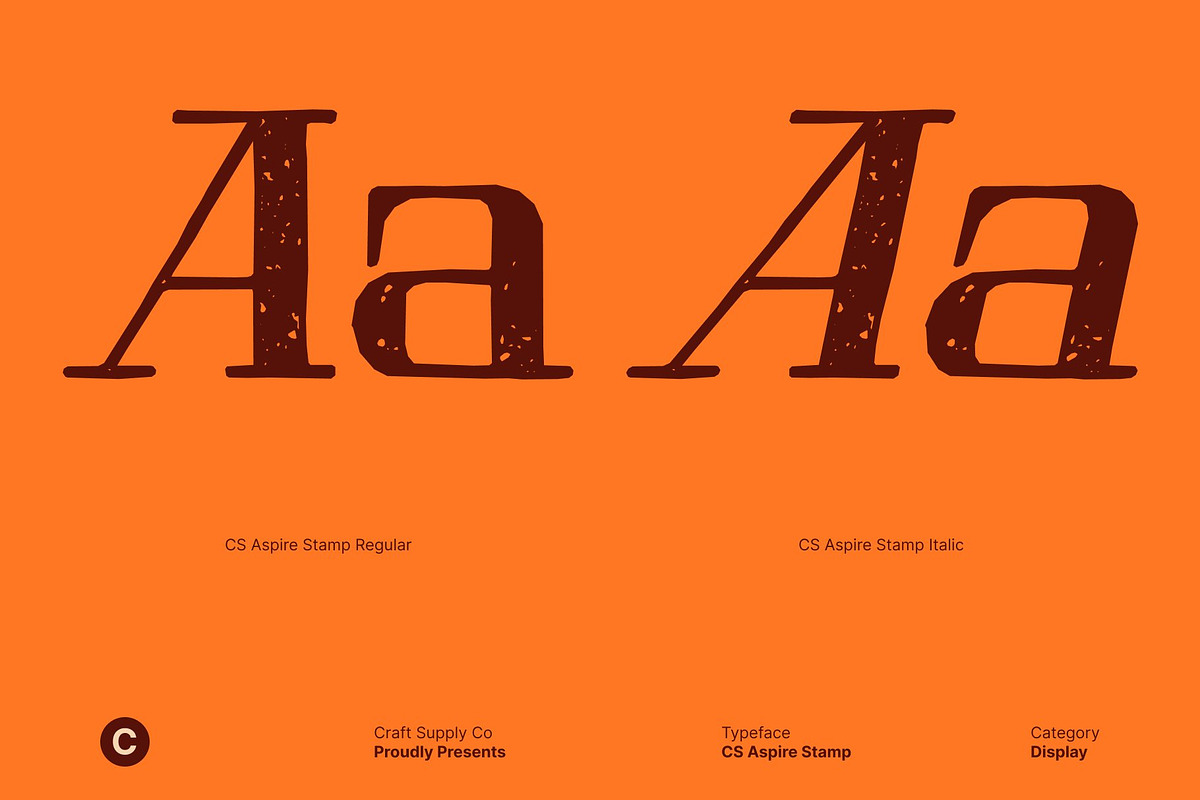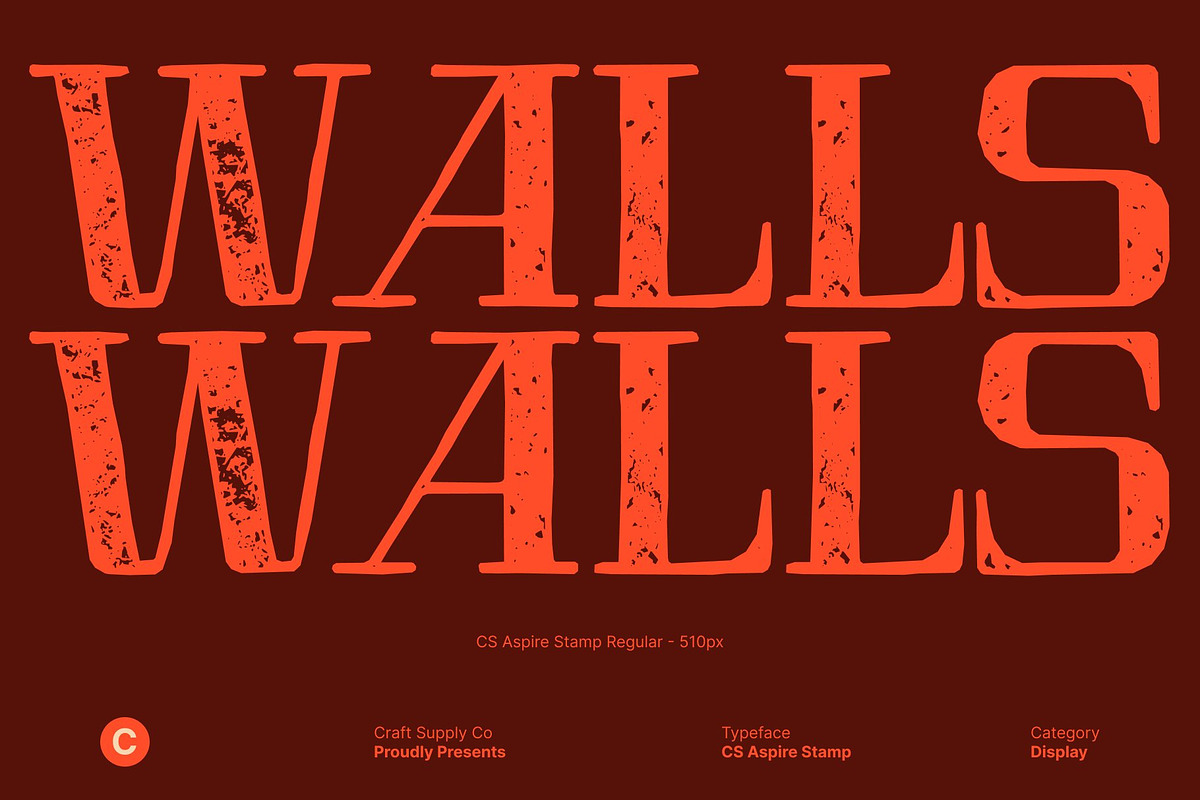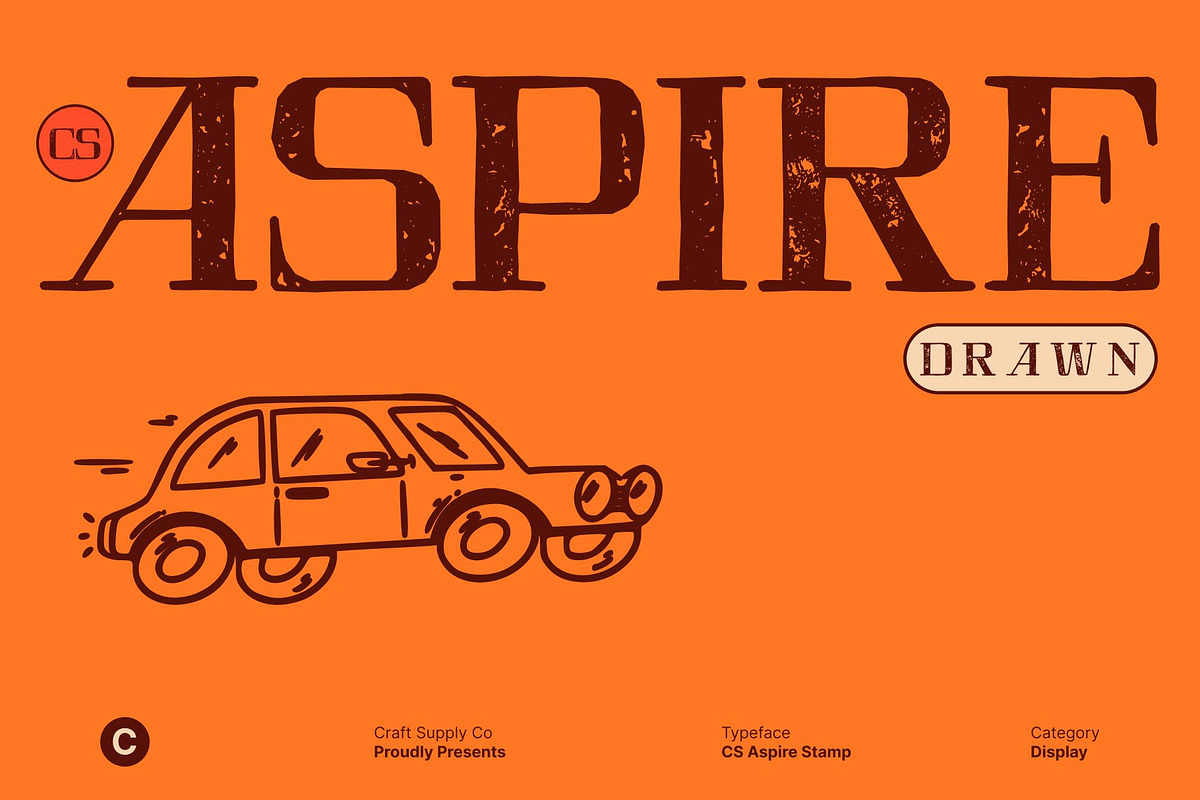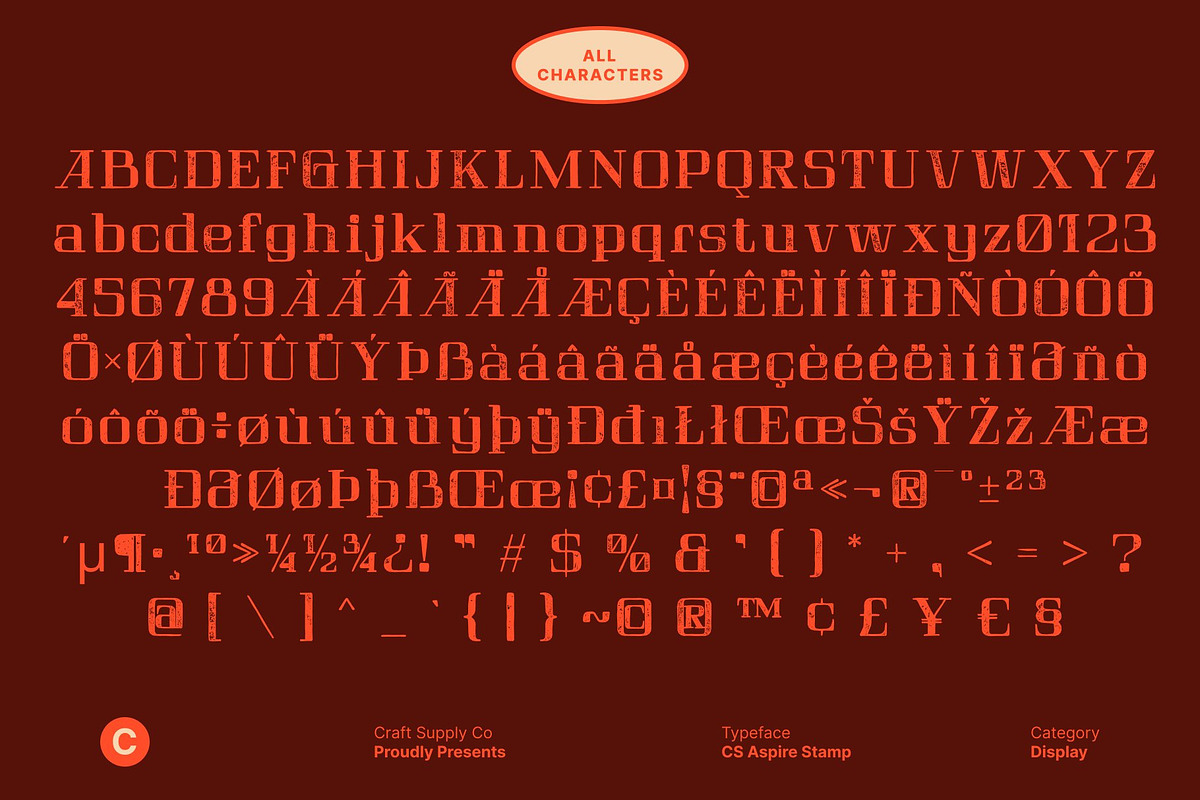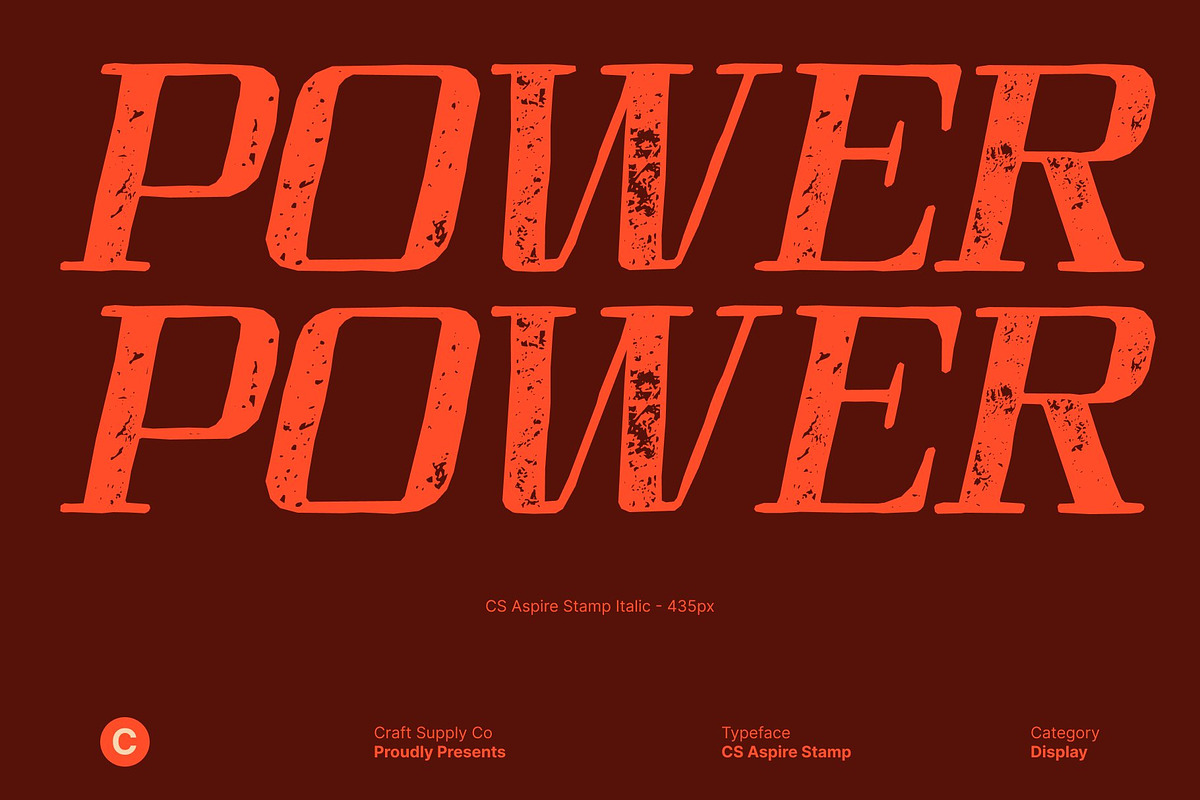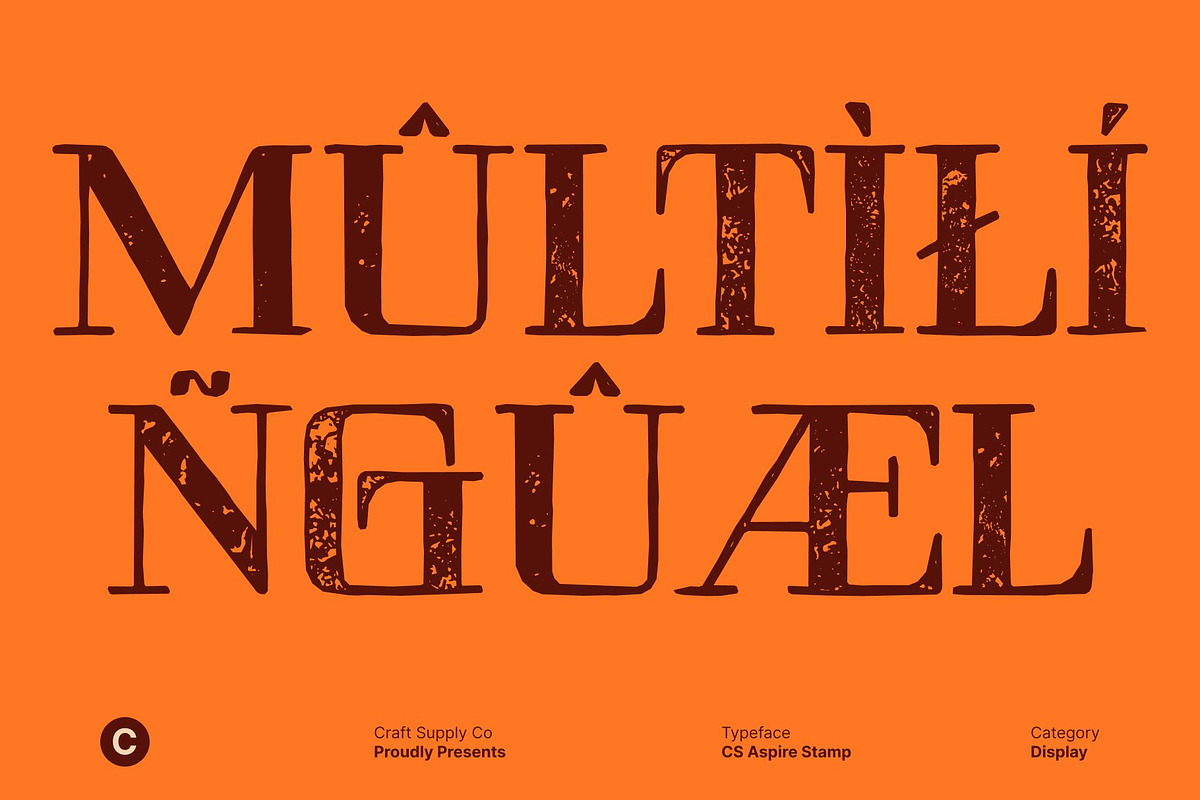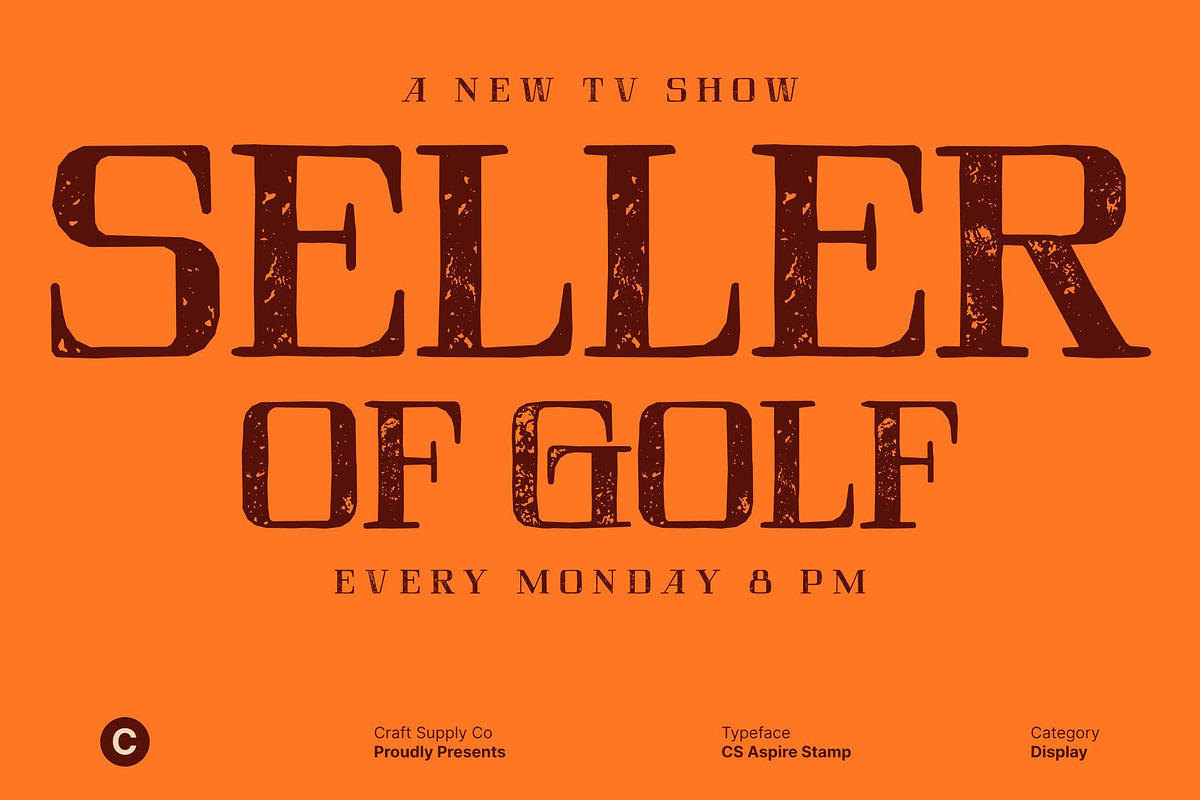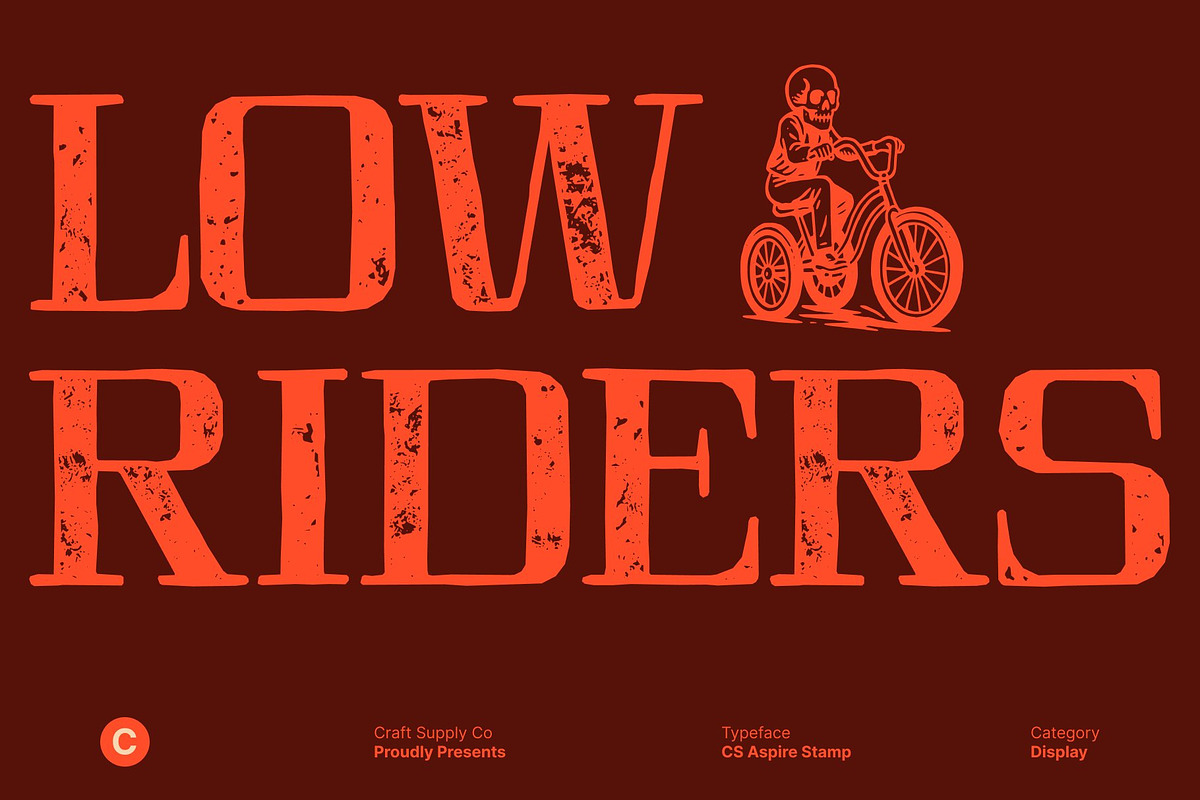
CS Aspire Stamp
CS Aspire Stamp – Tech Font: Bridging Tradition with Futuristic Innovation
Modern Serif with Tech-Inspired Precision This is a modern serif font that merges the elegance of classic serif typography with sharp, futuristic design influences. Clean lines, angular cuts, and structured proportions give this typeface a forward-looking character, making it ideal for projects that demand innovation without losing a sense of professionalism and heritage.
Futuristic Aesthetic Balanced by Traditional Elegance The defining strength of lies in its fusion of geometric precision and refined serif details. Its angular forms introduce a distinctly technological feel, while the serif foundations add familiarity, stability, and trust. This balance creates a typeface that feels advanced yet dependable perfect for modern brands that value both innovation and credibility.
Stamped Texture for Authentic, Industrial Character The stamped style adds a rough, uneven texture that enhances the font’s visual depth and authenticity. This subtle distressing introduces an industrial, tactile quality that contrasts beautifully with the font’s clean, tech-driven structure. The result is a typeface that feels futuristic yet grounded, polished yet full of character.
Ideal for Tech Branding and Modern Visual Systems Designed for high-tech industries, digital branding, editorial layouts, and innovative product design, this font brings a sophisticated, forward-thinking voice to every application. Its blend of tradition, innovation, and stamped authenticity makes it a powerful choice for brands that aim to look modern, intelligent, and confidently ahead of their time.
CS Aspire Stamp Regular
CS Aspire Stamp Italic